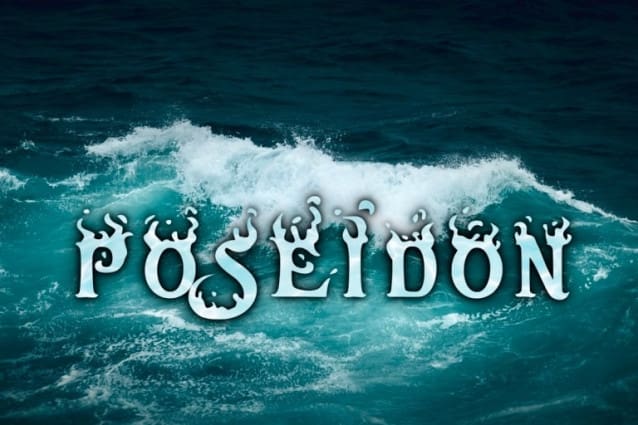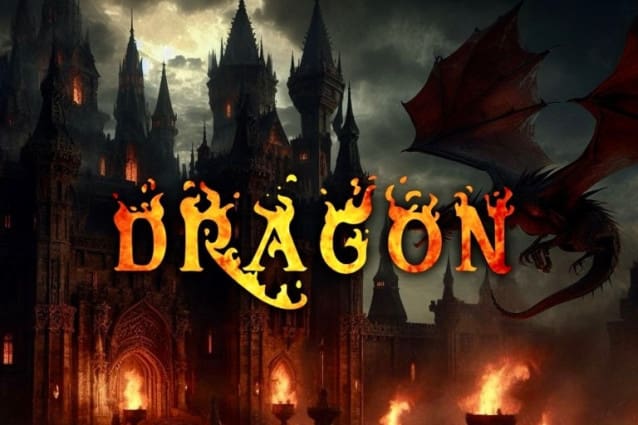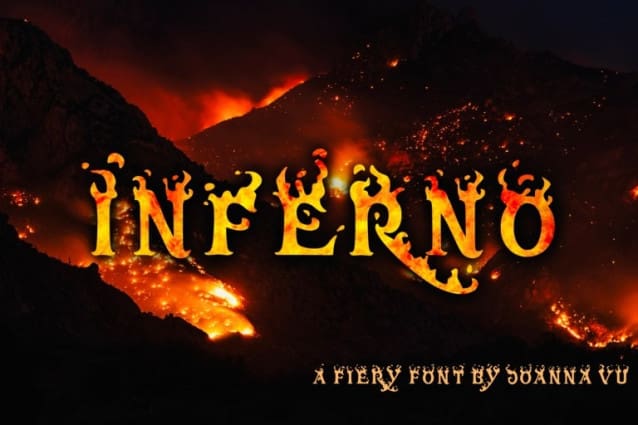
Inferno Fiery Font
Inferno Fiery Font a fiery font, that surprisingly works well as water/wave too. Two sides of the same coin I guess. Inspired by … fire! Oh how unexpected. Includes uppercase, lowercase, numbers and Greek.